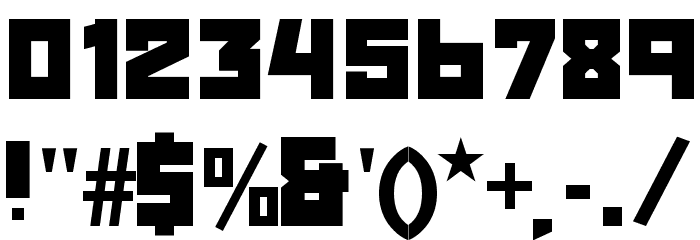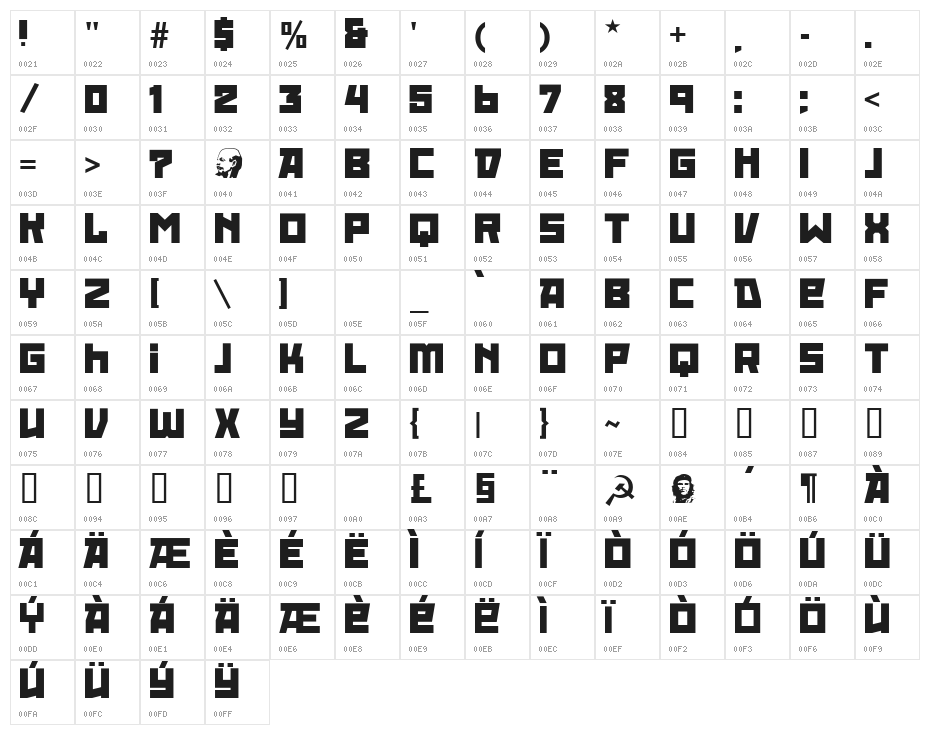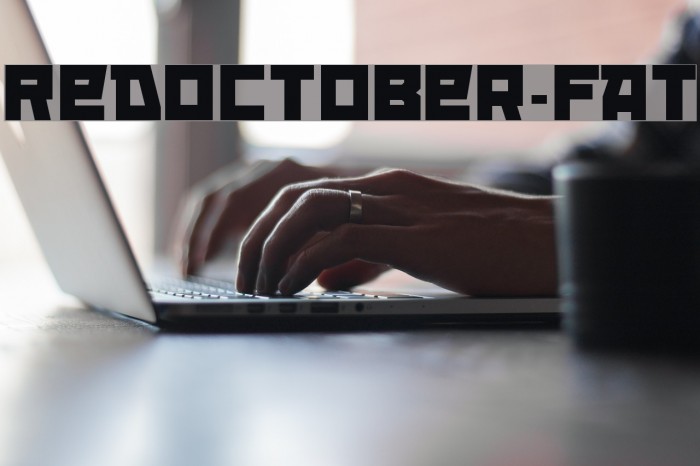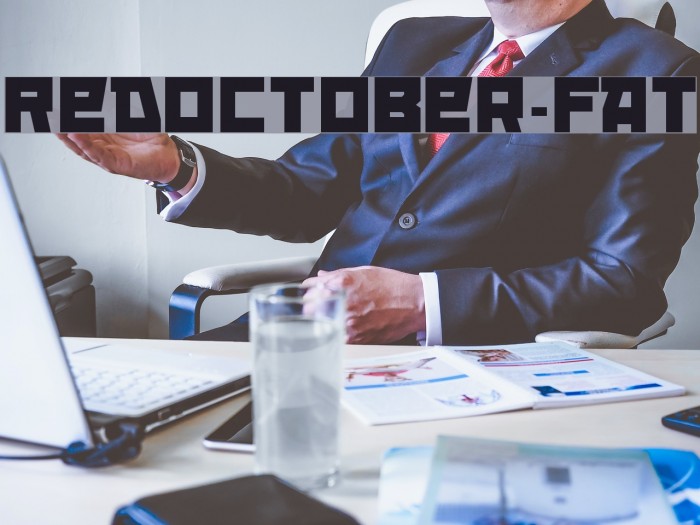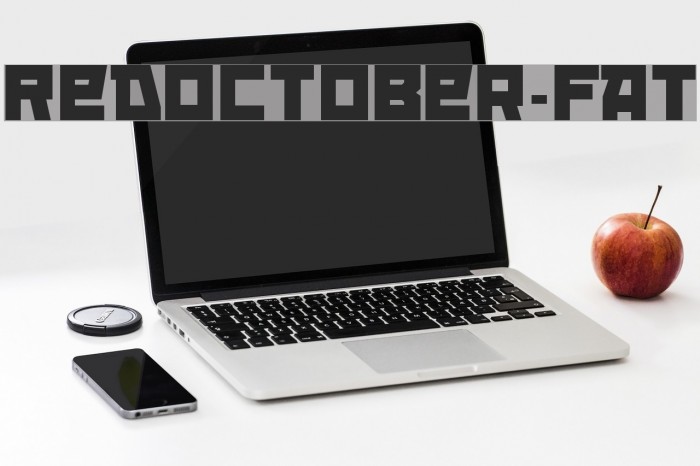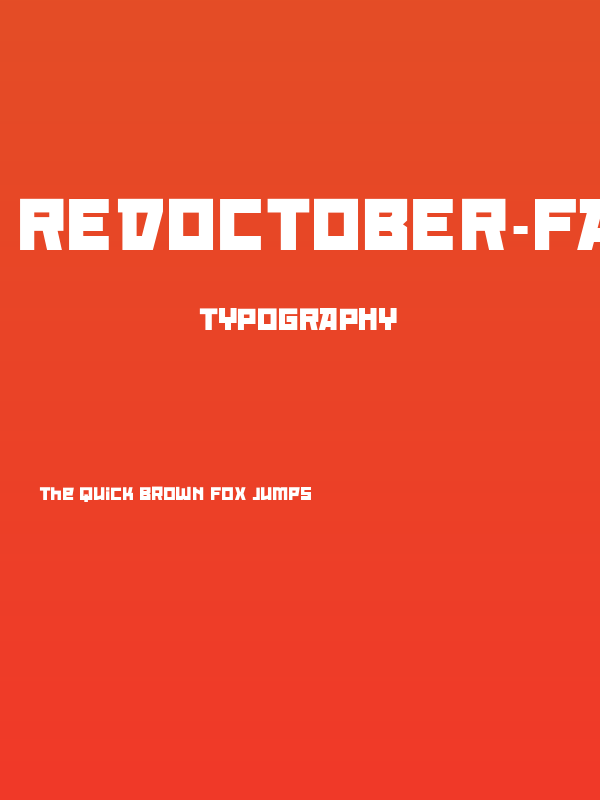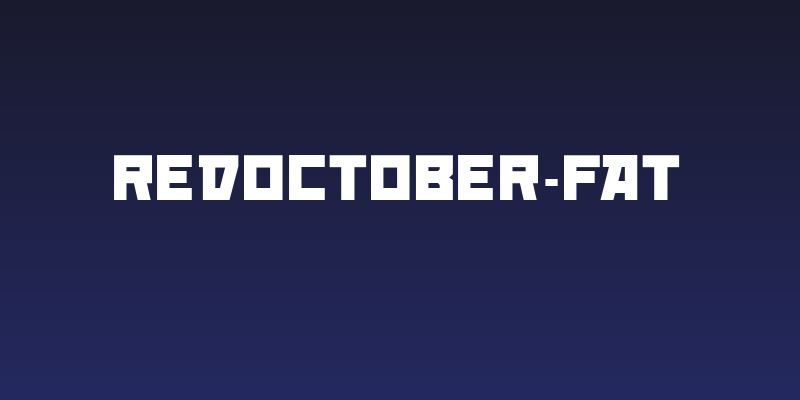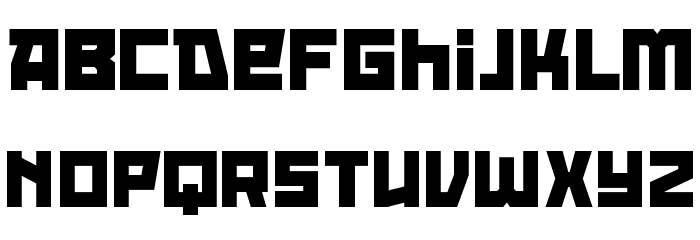
RedOctober-Fat Font
RedOctober-Fat Description
This font features a bold, geometric design with strong, angular lines and a blocky appearance. The uppercase and lowercase letters maintain a consistent width, giving a uniform look across all characters. The numerals are equally bold and share the same geometric style, ensuring they stand out prominently. Special characters are designed to match the overall aesthetic, with sharp edges and a modern feel. The font's heavy weight and solid structure make it ideal for impactful headlines and attention-grabbing designs.
| Proposed Projects | Ideal for posters, logos, branding, and any project requiring a strong visual impact. |